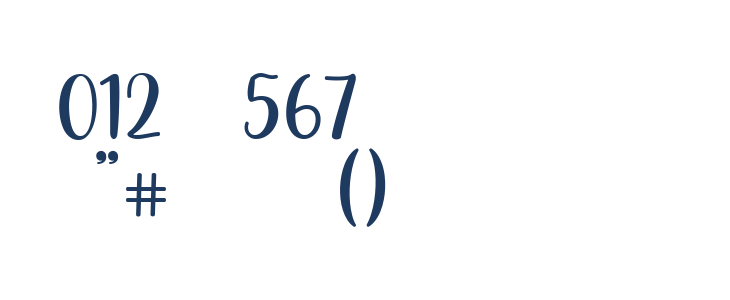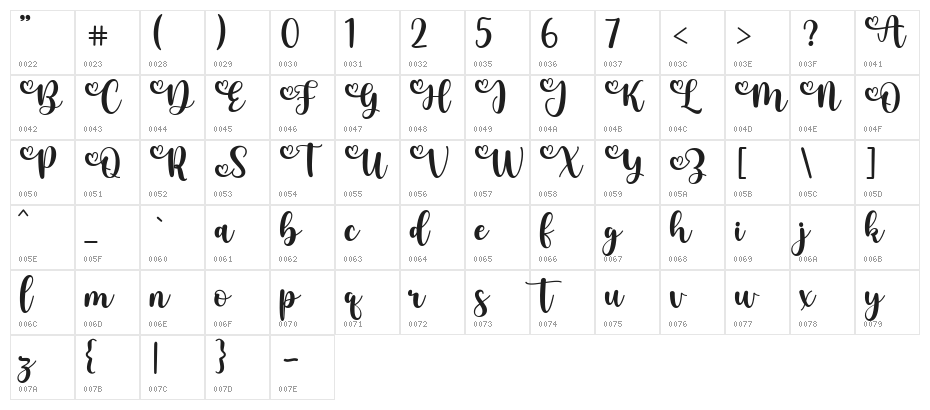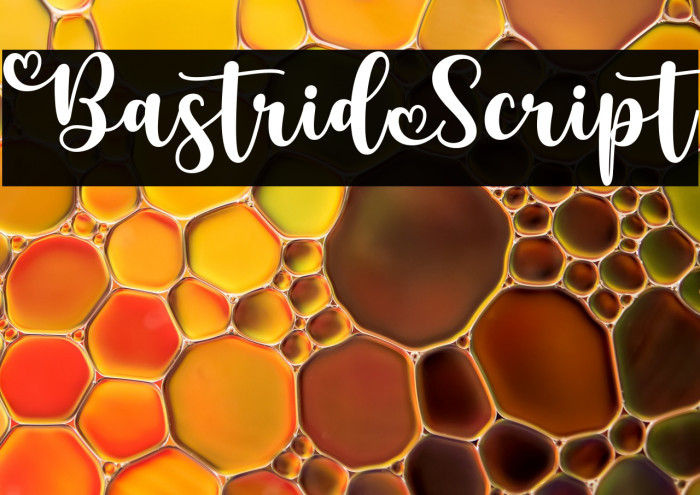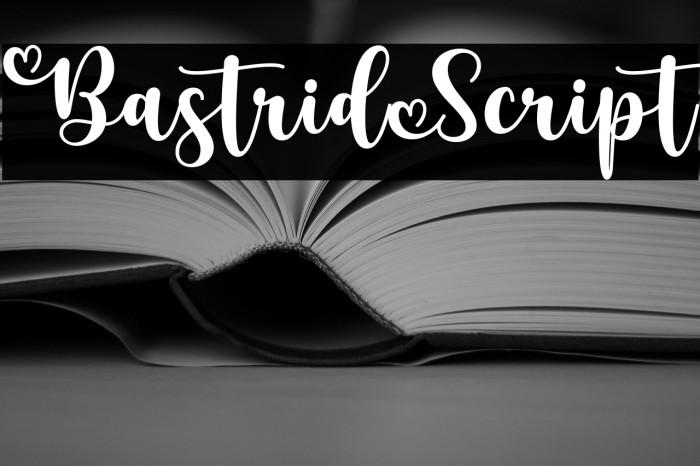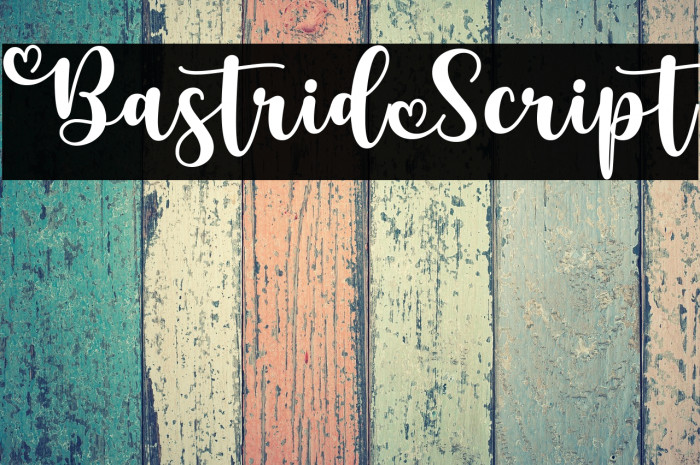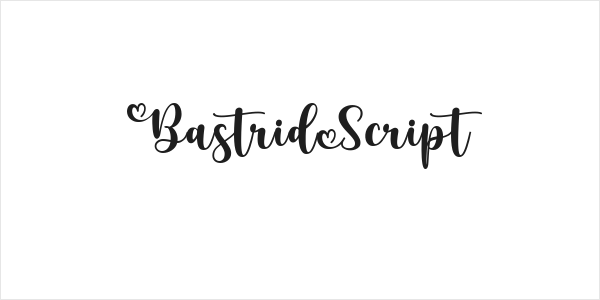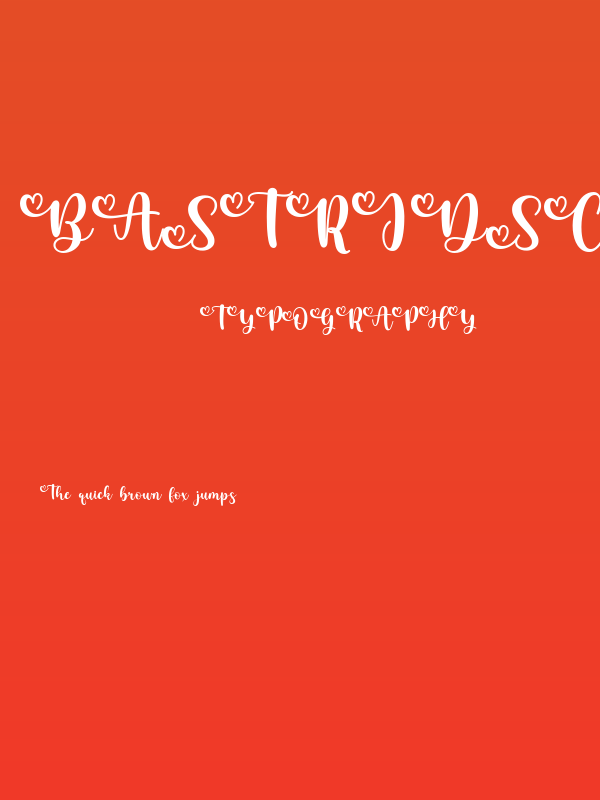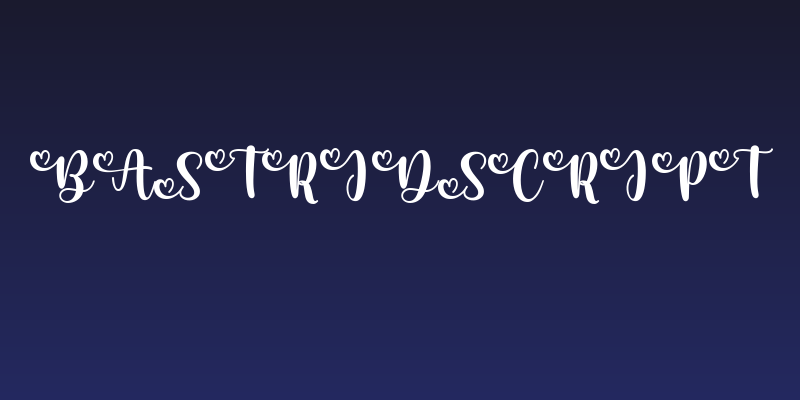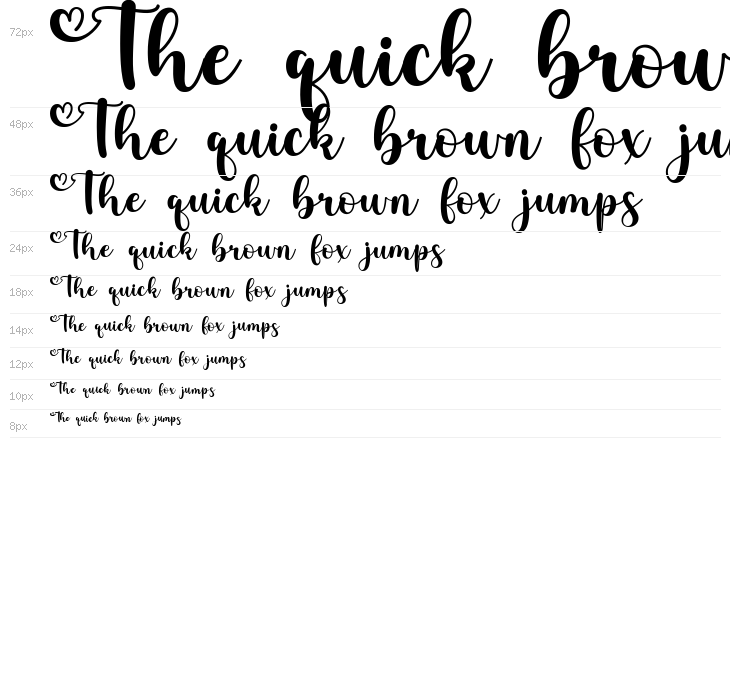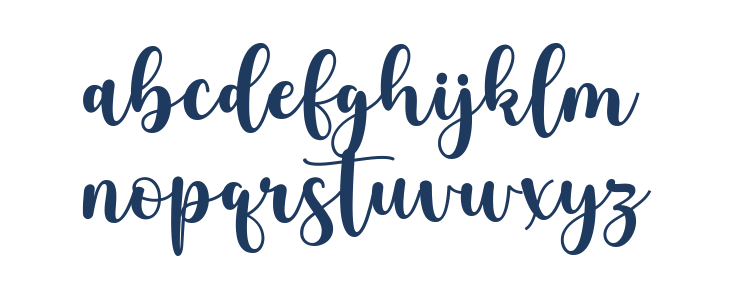
BastridScript Font
BastridScript Description
This font features a playful and romantic script style, characterized by its flowing, cursive letters adorned with heart motifs. The uppercase letters are particularly decorative, with each character incorporating a heart shape, adding a whimsical touch. The lowercase letters maintain a smooth, connected script that enhances readability while retaining an elegant flair. The numerals are bold and slightly rounded, complementing the overall design. Special characters are included, maintaining the font's cohesive style. This font is perfect for projects that require a personal, affectionate touch, such as wedding invitations, greeting cards, or branding for romantic-themed products.
| Use Case | Logos, Headlines, Invitations |
| Proposed Projects | Ideal for wedding invitations, greeting cards, romantic branding, and personal stationery. |